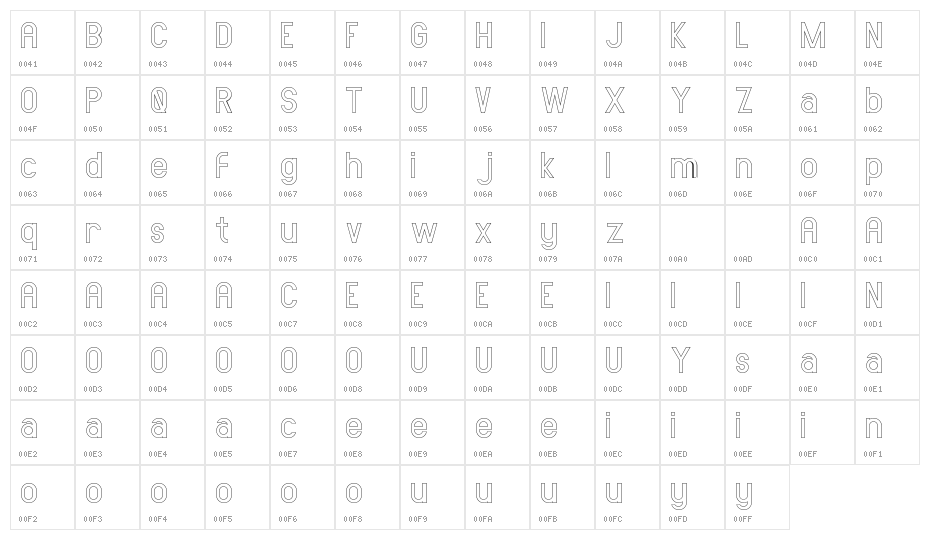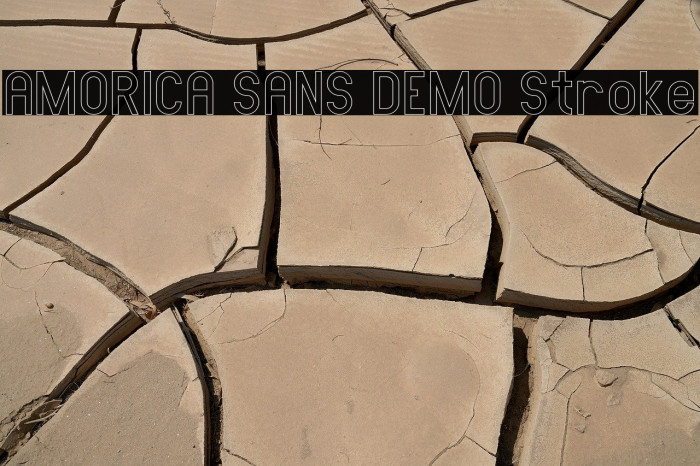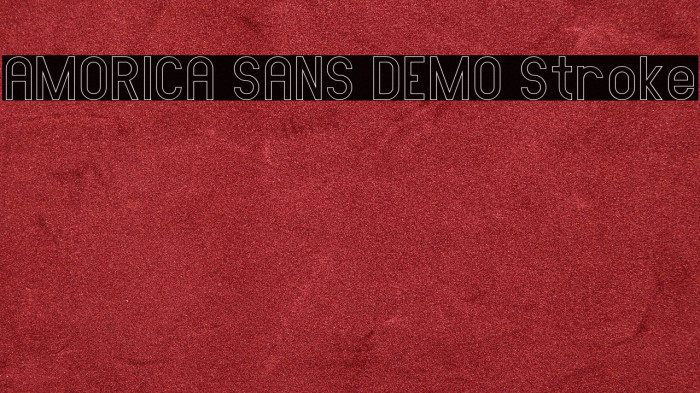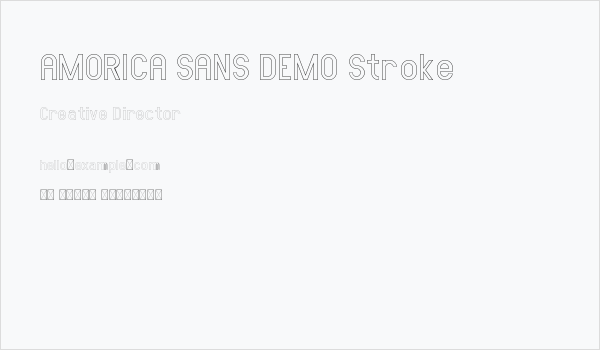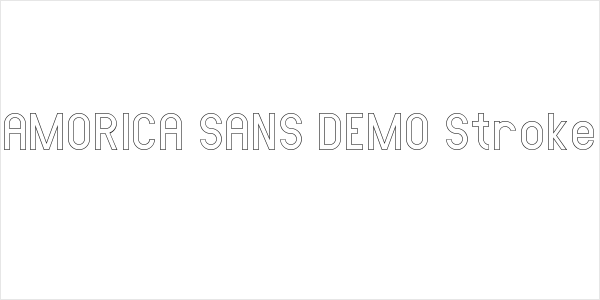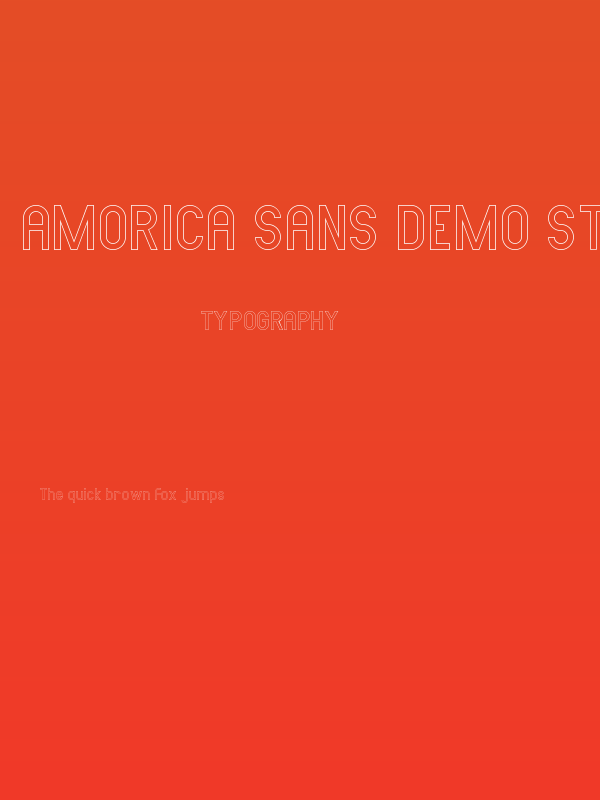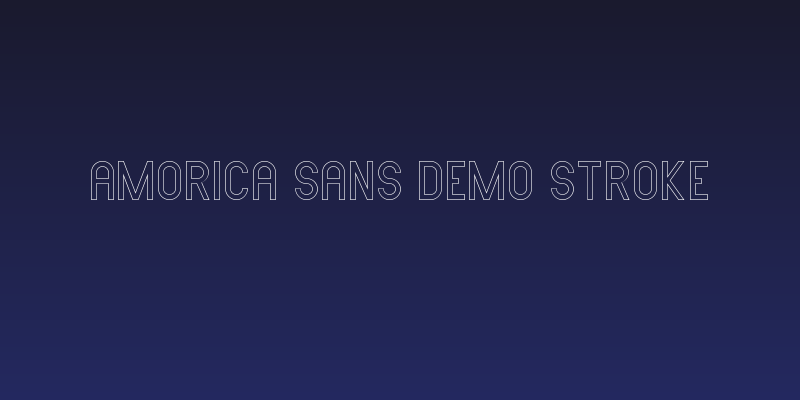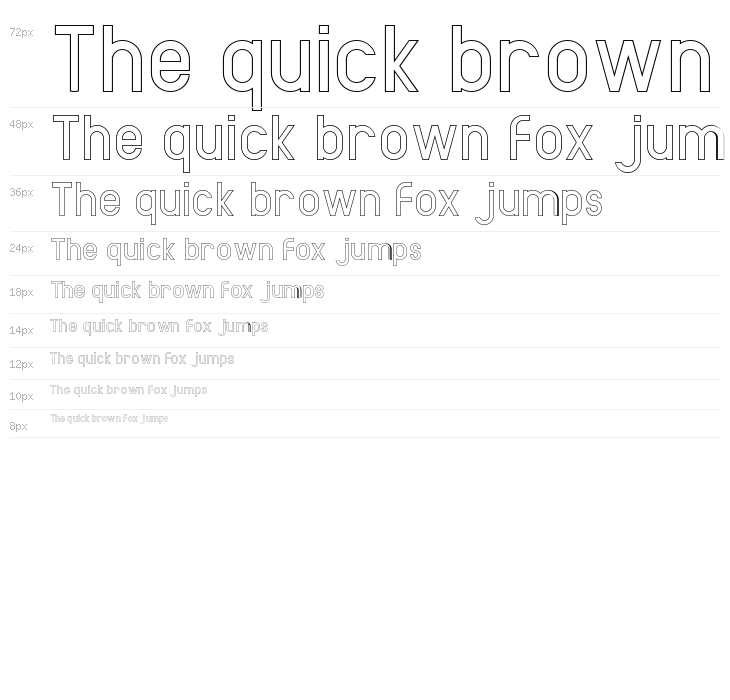
AMORICA SANS DEMO Stroke Font
AMORICA SANS DEMO Stroke Description
This font features a clean and modern sans-serif style with a unique outline design. Each character is crafted with a consistent stroke width, giving it a sleek and contemporary appearance. The uppercase and lowercase letters maintain a uniform height and width, ensuring readability and balance. The font's geometric structure is evident in the precise angles and curves, making it suitable for a variety of design applications. Its minimalist aesthetic is enhanced by the absence of serifs, which contributes to its modern and streamlined look.
| Proposed Projects | Ideal for branding, logos, headlines, and digital media where a modern and clean look is desired. |